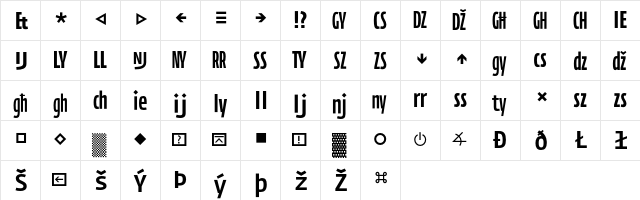
Fedra Mono Medium Expert
Design Context for Fedra Mono Typeface
Fedra Mono brings the precise, column-aligned rhythm of monospaced typography to designs that value technical clarity and systematic order.
Pro Tip: Pair Fedra Mono with a proportional sans for UI contexts where code-style labels and regular body copy need to coexist.